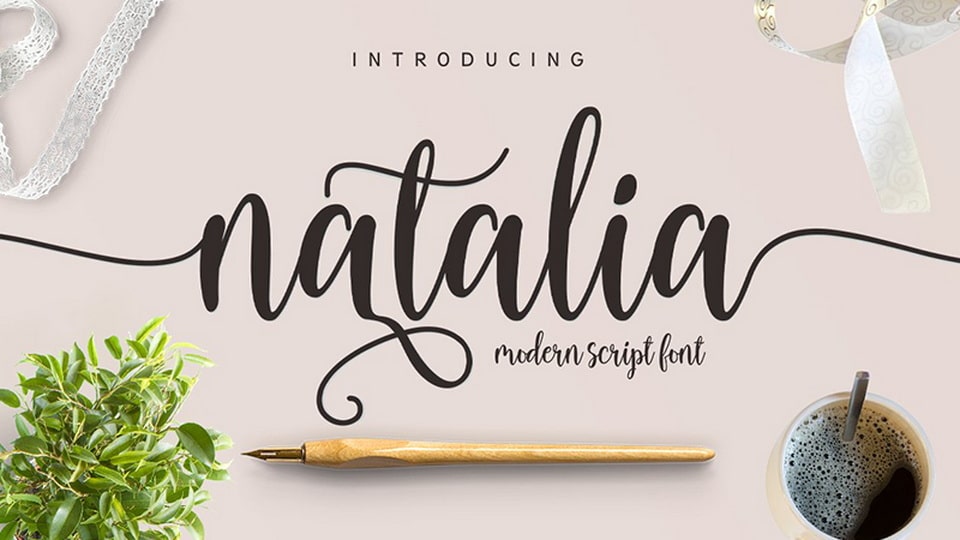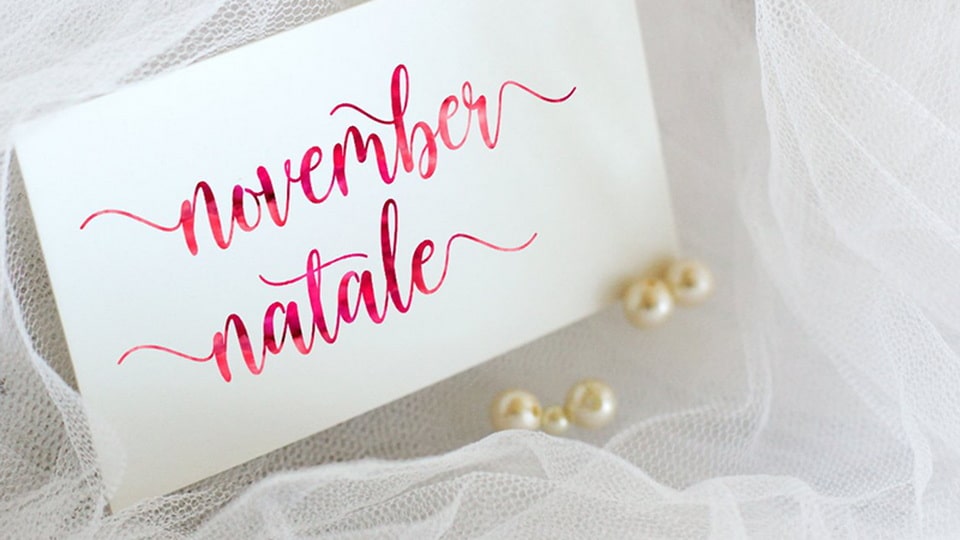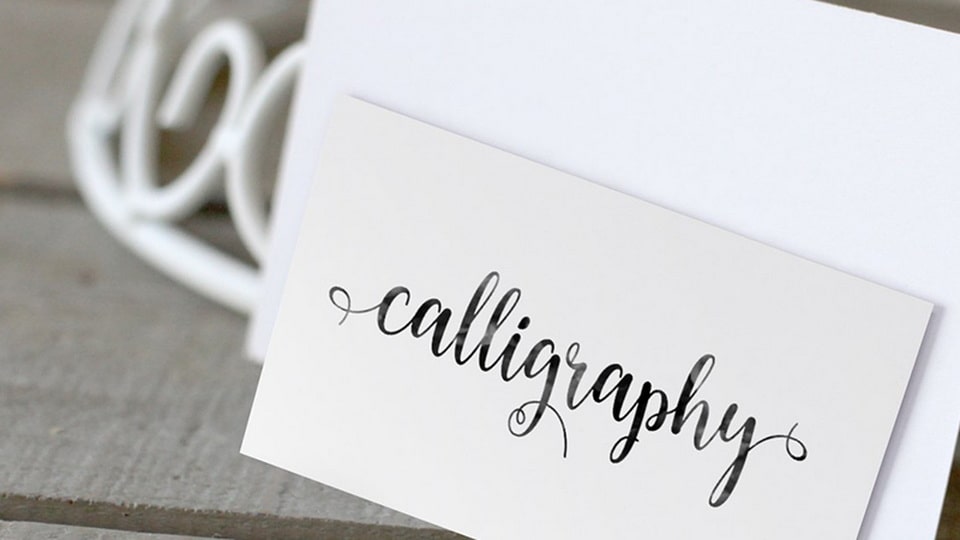
Natalia is a lovely, modern calligraphic script font. It features dynamic and pretty swashes and can be used for many purposes, such as titles, signatures, logos, wedding invitations, letterhead, signage, labels, newsletters, posters, badges, etc.